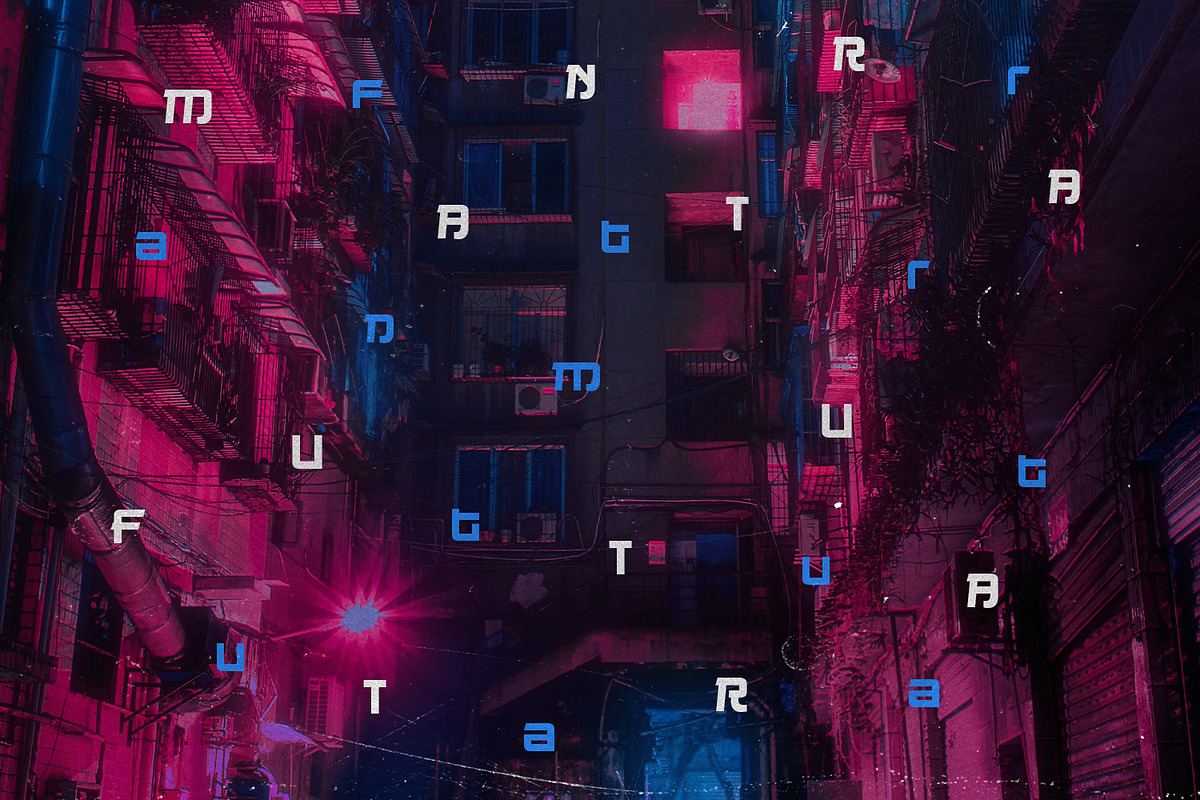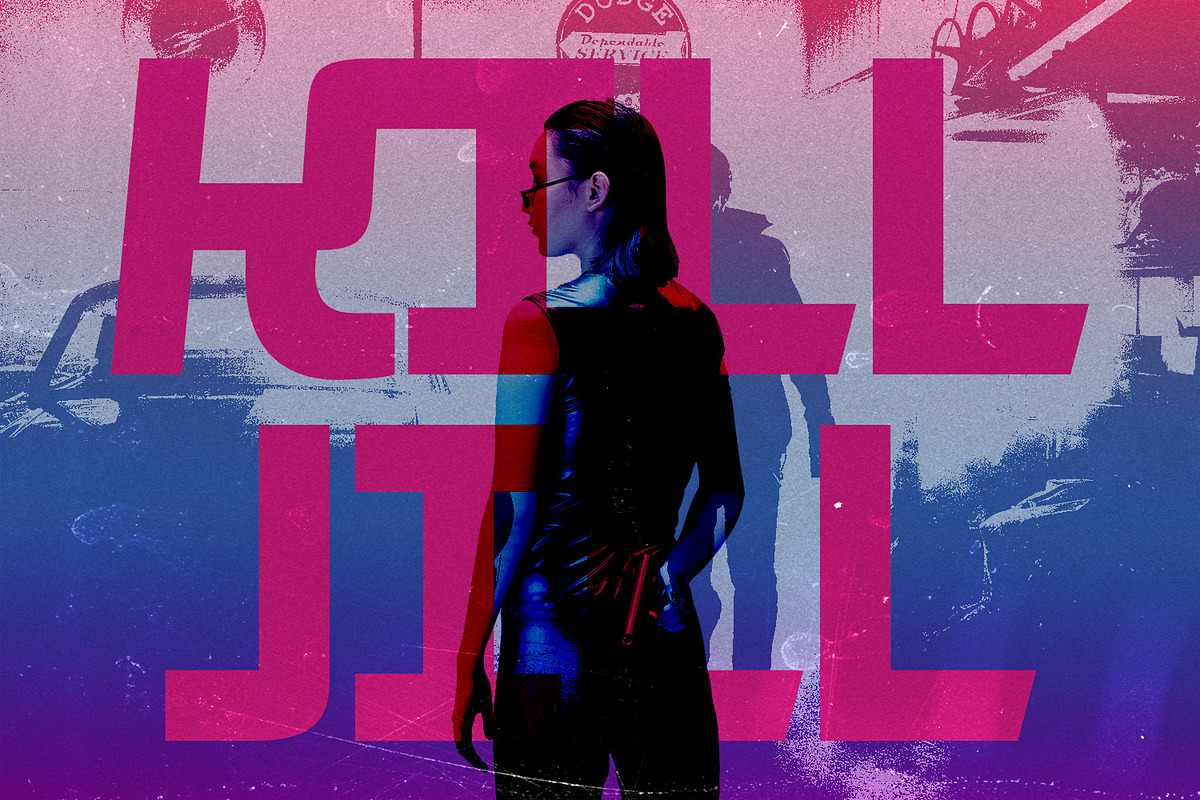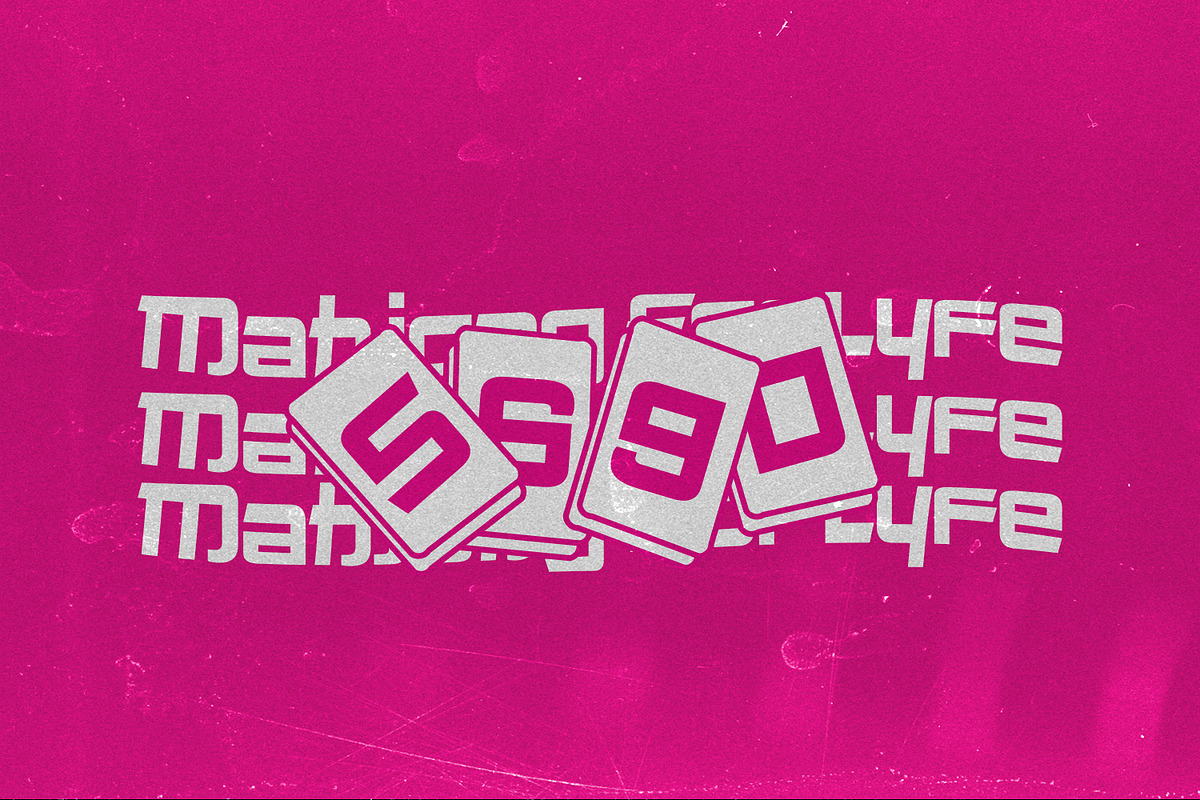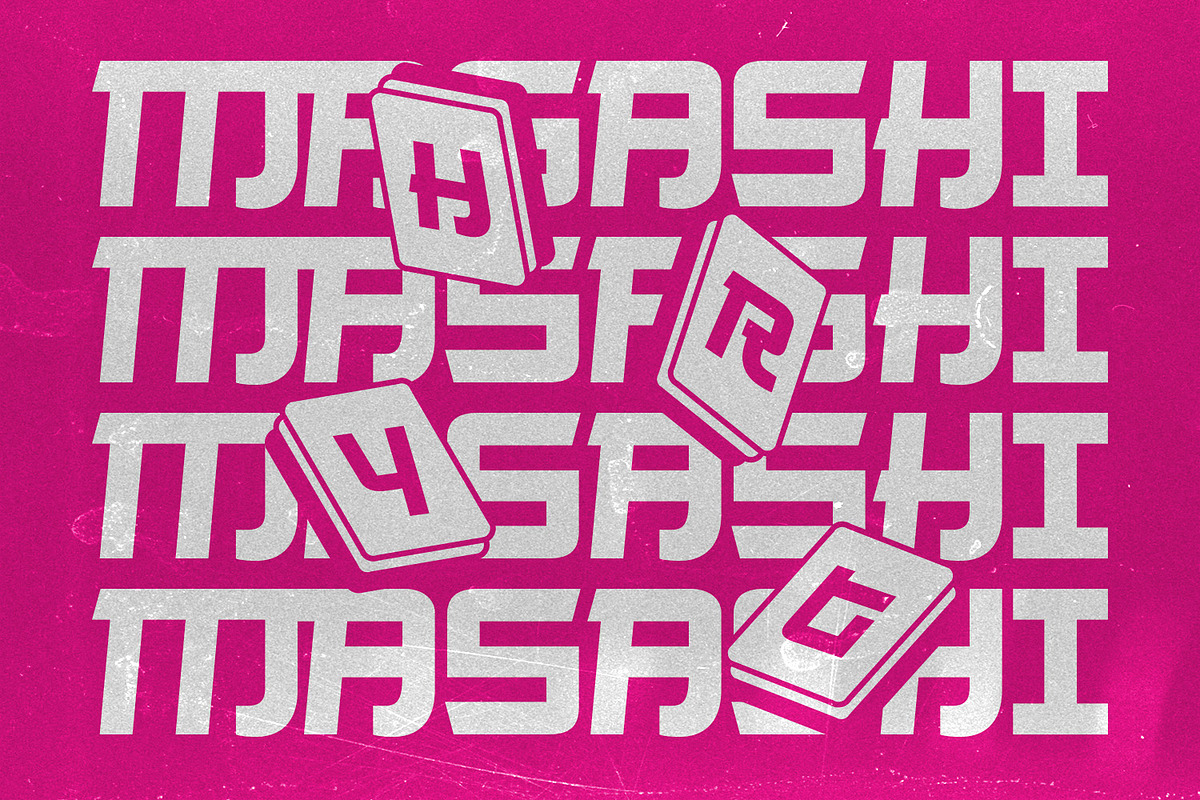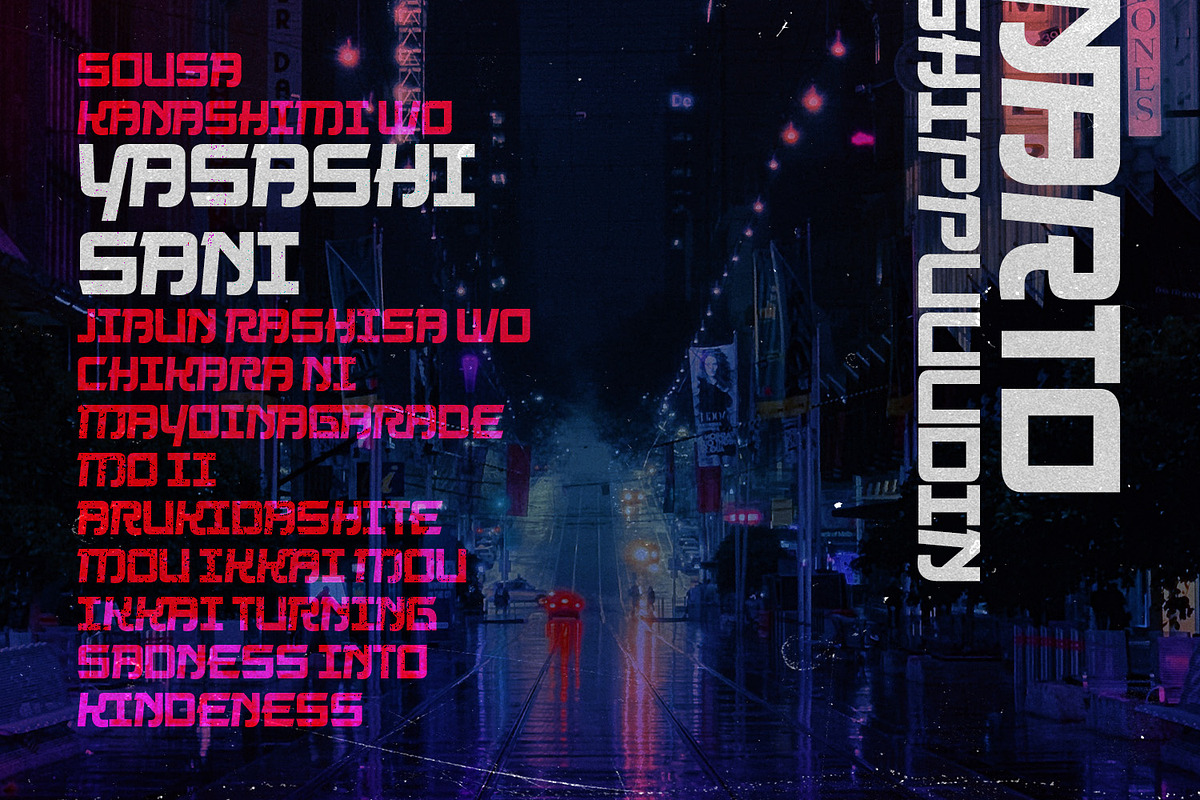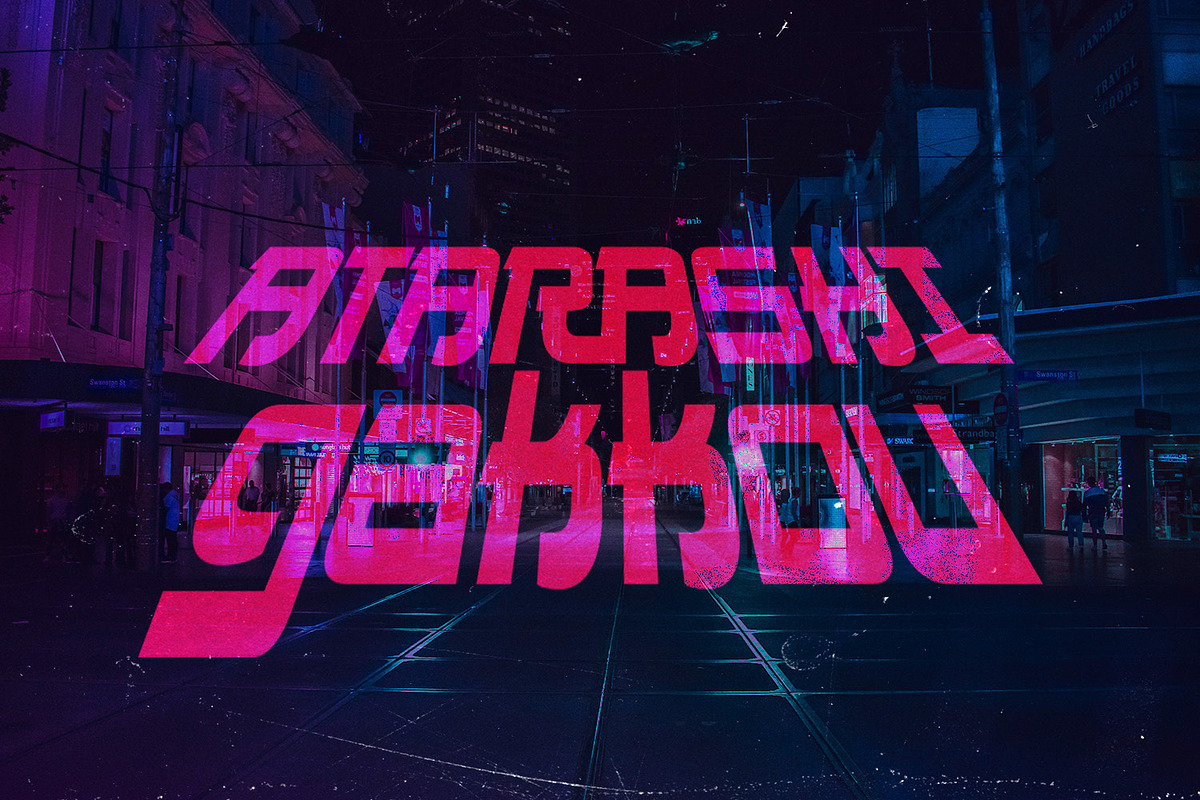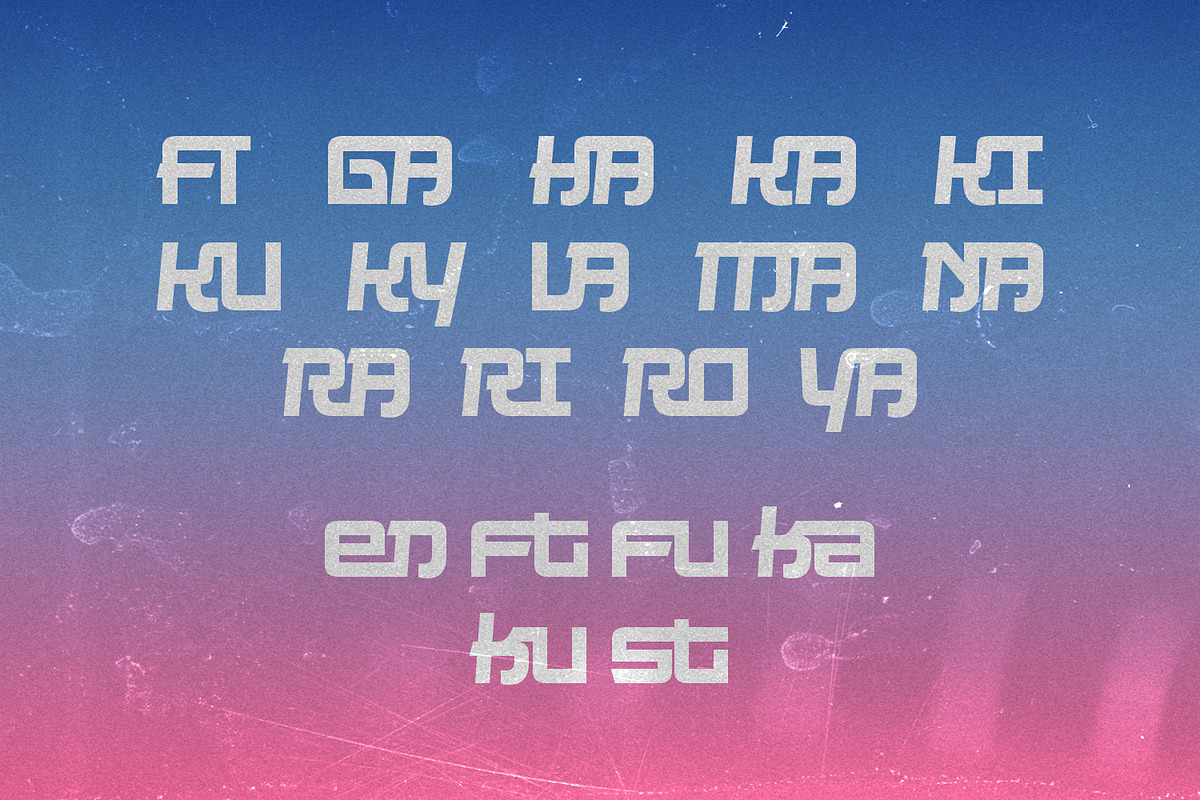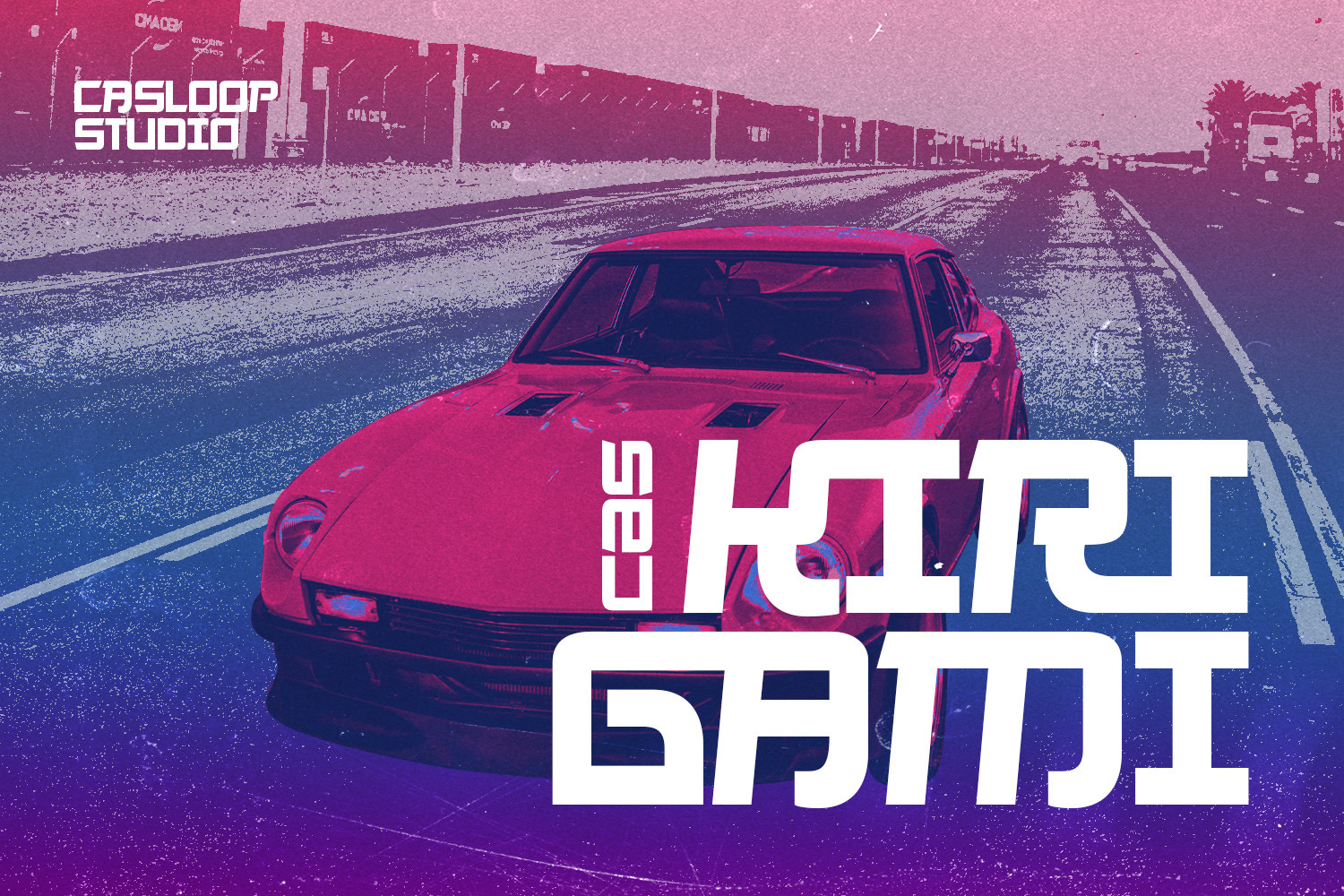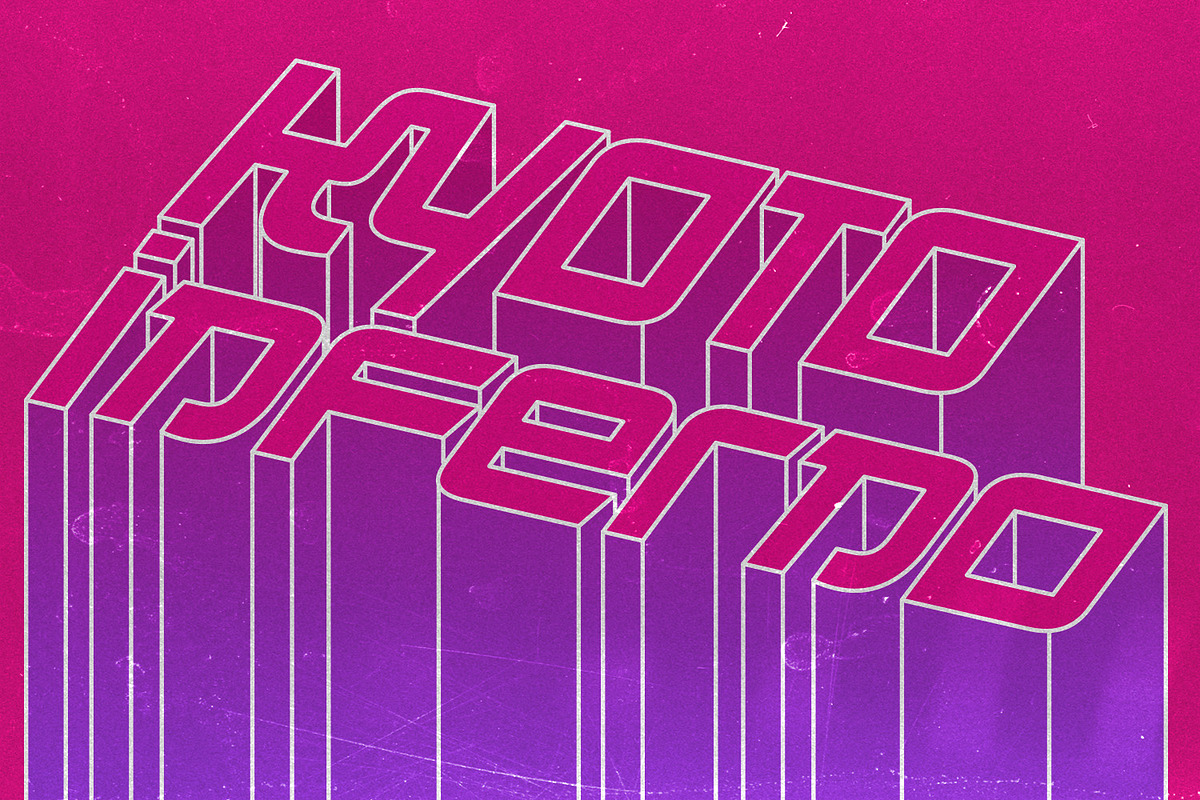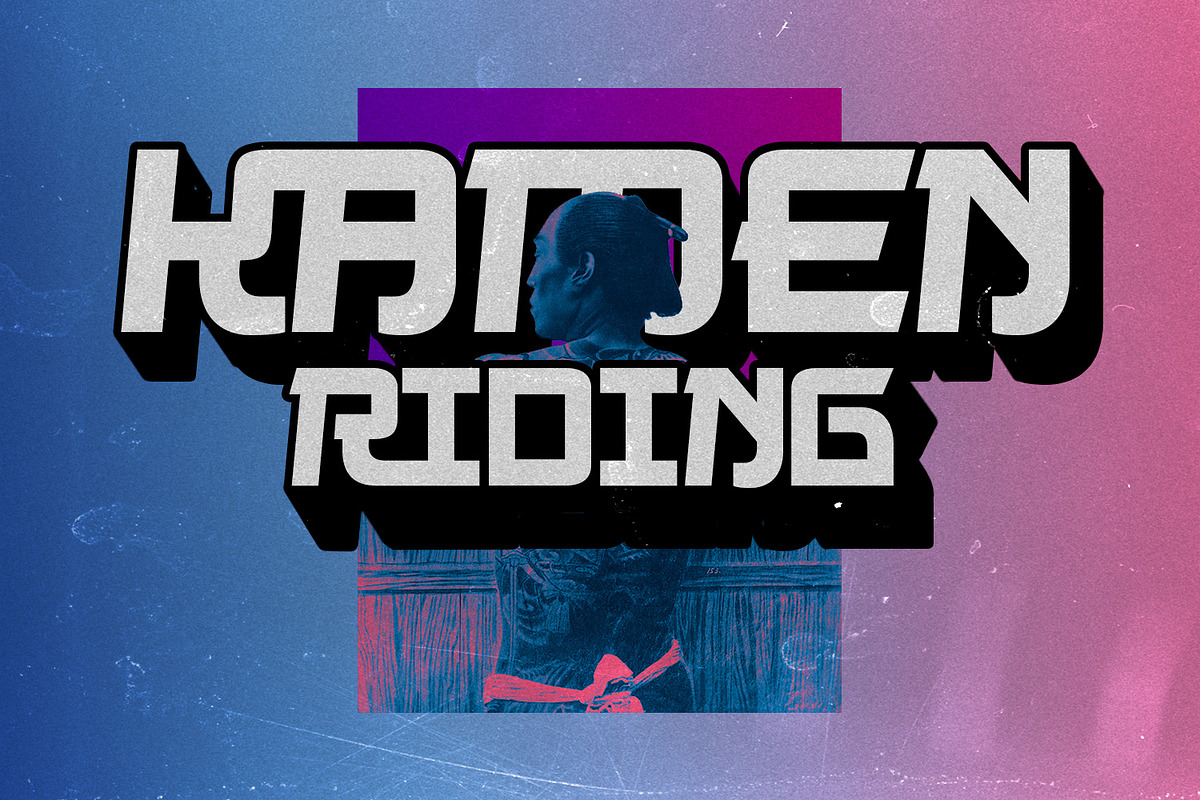
Cas Kirigami Oriental Typeface
Introducing Cas Kirigami: A Fusion of Tradition and Future Aesthetics Astrology
Cas Kirigami, an Experimental Oriental Sans Serif font, seamlessly blends authenticity, traditional elegance, and neo-classic charm. Inspired by cultural heritage and time-honoured traditions, it introduces a ceremonial and aesthetic touch to modern design. The humanist natural flow of Cas Kirigami captures the essence of Japanese literature integrated into Latin alphabets, resulting in a unique and original fusion.
Experience the impressive impact of Cas Kirigami across various applications, from websites, packaging, logos, and branding to album covers, 3D projects, and posters. This font doesn't just stun; it satisfies with its gorgeous, eccentric twist and vibrant, youthful energy. The visual consistency, memorability, and striking harmony make it an innovative and dynamic choice for modern design.
Cas Kirigami pays homage to the rich cultural tapestry, incorporating elements like the auspicious red and gold, symbolic of the New Year and good fortune. The font is a celebration, echoing the spirit of Gong Xi Fa Cai China and blessings with a nod to the Edo period, Sakura blossom, and the vibrant nightlife of Nihon, including city pop, nightclubs, and retro pop fiction.
Uppercase & lowercase Numbers and punctuation Ligatures Multilingual